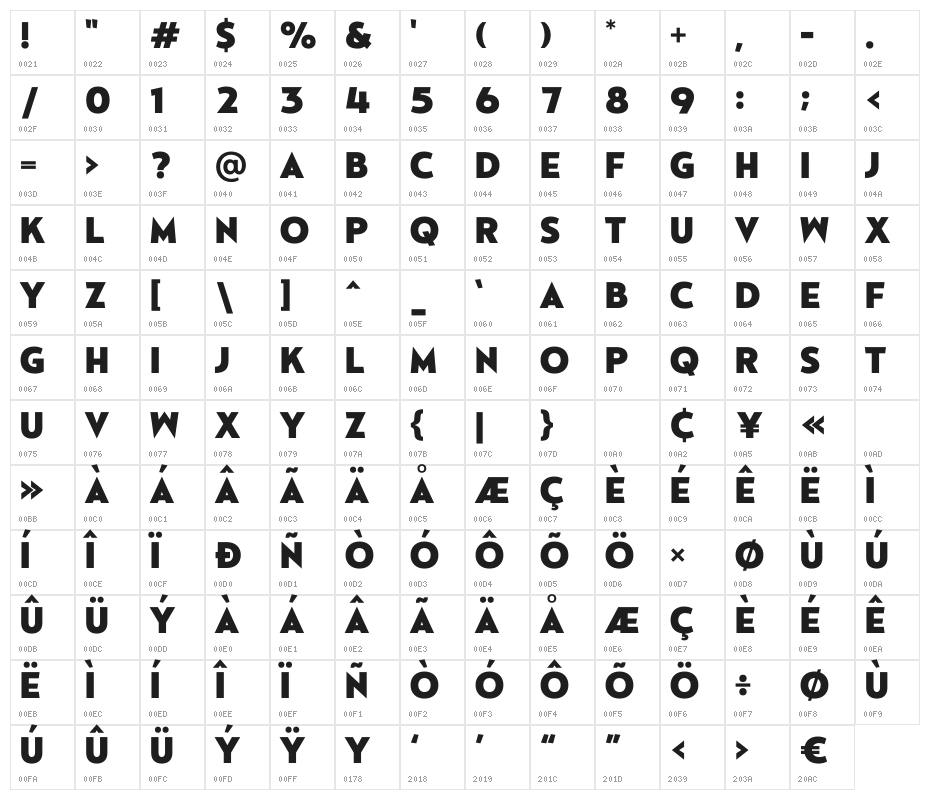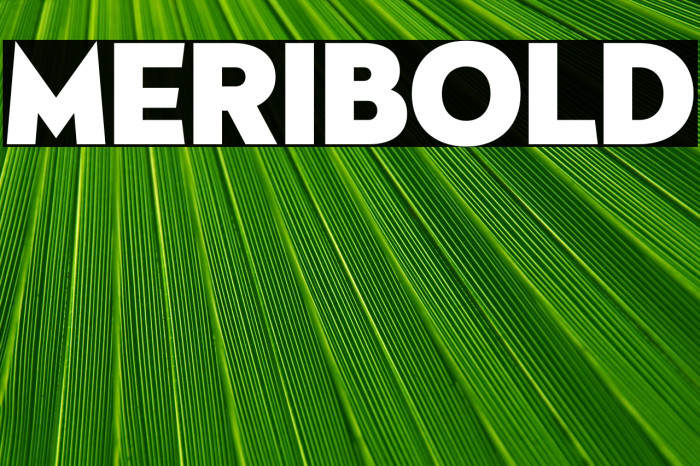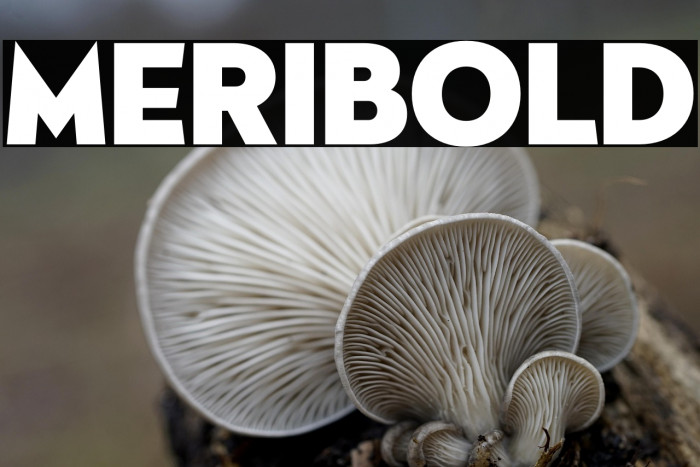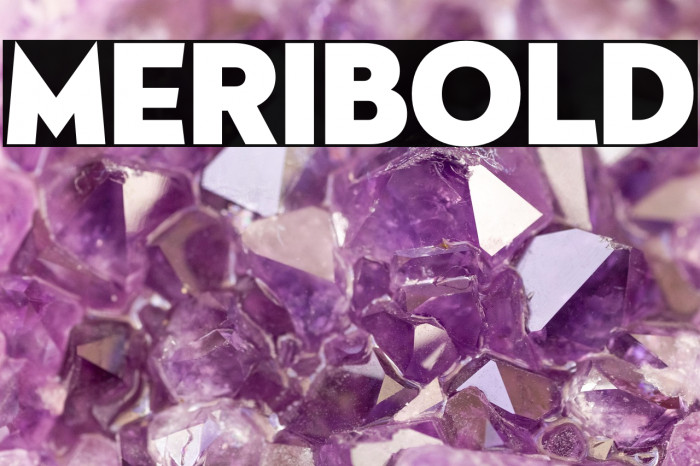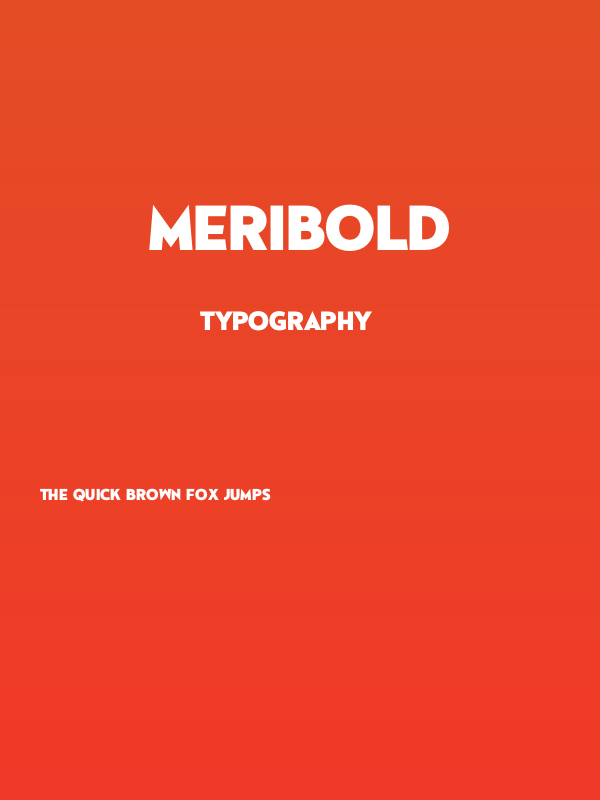
Meribold Font
Meribold Description
This font features bold, geometric letterforms with a strong presence. The characters are crafted with a uniform stroke width, giving them a solid and impactful appearance. The uppercase and lowercase letters maintain a consistent style, with sharp angles and clean lines that contribute to a modern aesthetic. The numerals are equally bold, ensuring readability and visual balance. Special characters are designed to match the overall boldness, making them suitable for various applications. The font's design is straightforward yet striking, making it ideal for attention-grabbing headlines and titles.